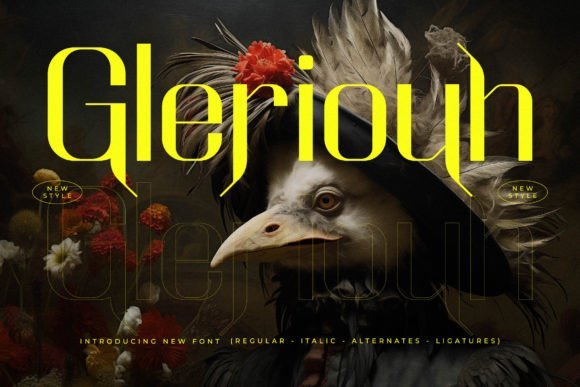
Introduction to Gleriouh Font
Proudly present Gleriouh Typeface , created by Storytype, A serif modern and classic typeface that has its own unique style & modern look.
This typeface is perfect for an elegant & luxury logo, book or movie title design, fashion brand, magazine, clothes, lettering, quotes, and so much more This font is PUA encoded which means you can access all of the amazing glyphs and ligatures with ease.